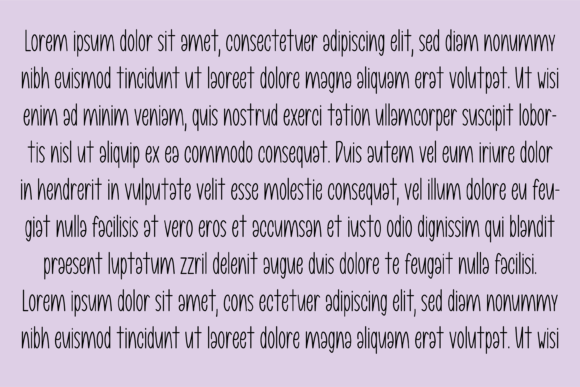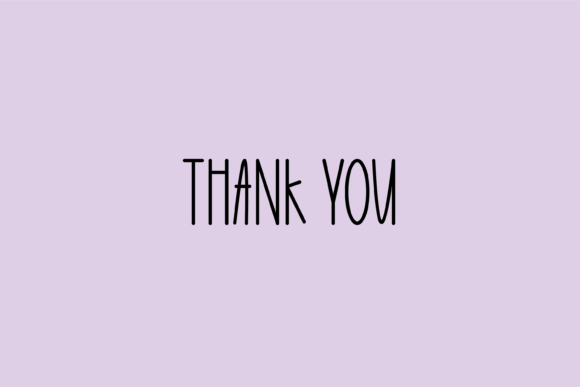
Alica Font: The Perfect Handwritten Font for Your Creative Projects
Are you looking for a font that can add a touch of whimsy and friendliness to your designs? Look no further than Alica Font! This simple and elegant handwritten font is perfect for a wide range of creative projects, from logos and wedding invitations to quotes, advertisements, and more.
What Makes Alica Font So Special?
Alica Font is a unique and eye-catching typeface that is sure to brighten up any design. Its whimsical and quirky style makes it perfect for designers and crafters who want to add a personal touch to their work. Whether you’re creating a logo, a wedding invitation, or a social media graphic, Alica Font is sure to make your design stand out.
Key Features of Alica Font
- Simple and Friendly: Alica Font has a simple and approachable style that makes it perfect for a wide range of designs.
- Whimsical and Quirky: This font has a playful and quirky style that adds a touch of personality to any design.
- Handwritten: Alica Font is a handwritten font that has a natural and organic feel.
- Versatile: This font is perfect for a wide range of designs, including logos, wedding invitations, quotes, advertisements, print, magazines, and more!
Uses for Alica Font
Alica Font is a versatile typeface that can be used for a wide range of creative projects. Here are some ideas to get you started:
- Logos: Alica Font is perfect for creating unique and eye-catching logos for businesses, products, or services.
- Wedding Invitations: This font is ideal for creating beautiful and personalized wedding invitations that set the tone for the big day.
- Quotes: Alica Font is perfect for creating inspiring and motivational quotes that can be shared on social media or used in designs.
- Advertisements: This font can be used to create eye-catching advertisements that grab attention and drive results.
- Print: Alica Font can be used for a wide range of print materials, including brochures, flyers, and posters.
- Magazines: This font is perfect for creating engaging and visually appealing magazine layouts.
Why Choose Alica Font?
There are many reasons why Alica Font is a great choice for designers and crafters. Here are a few:
- Unique Style: Alica Font has a unique and eye-catching style that sets it apart from other fonts.
- Easy to Read: This font is easy to read, even at small sizes, making it perfect for a wide range of designs.
- Customizable: Alica Font can be customized to fit your needs, including adjusting the size, color, and style.
- Time-Saving: This font can save you time and effort, as it’s easy to use and doesn’t require a lot of design expertise.
Tips for Using Alica Font
Here are a few tips for using Alica Font in your designs:
- Use it Sparingly: Alica Font is a bold and eye-catching font, so use it sparingly to avoid overwhelming your design.
- Pair it with Other Fonts: This font pairs well with other fonts, so experiment with different combinations to find the perfect look.
- Adjust the Size: Adjust the size of Alica Font to fit your design, and make sure it’s easy to read.
- Experiment with Colors: This font looks great in a wide range of colors, so experiment to find the perfect color for your design.
Alica Font is a unique and versatile handwritten font that’s perfect for a wide range of creative projects. Its whimsical and quirky style makes it perfect for designers and crafters who want to add a personal touch to their work. With its ease of use, customizability, and time-saving features, Alica Font is a great choice for anyone looking to brighten up their designs.